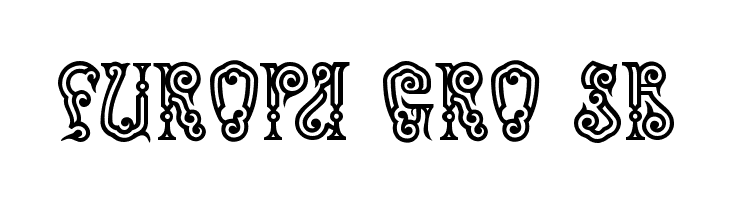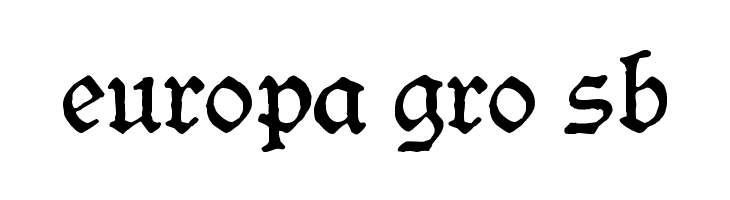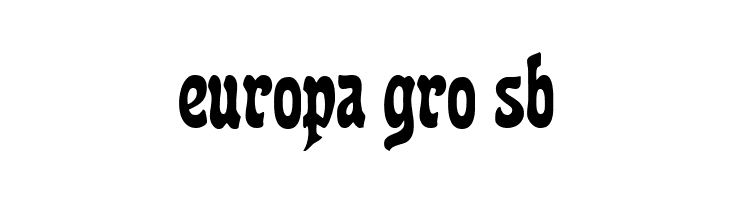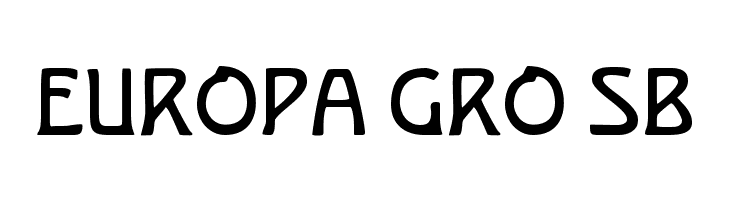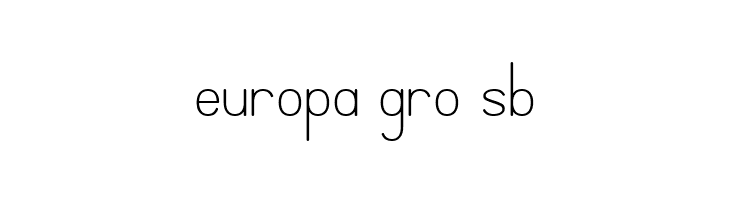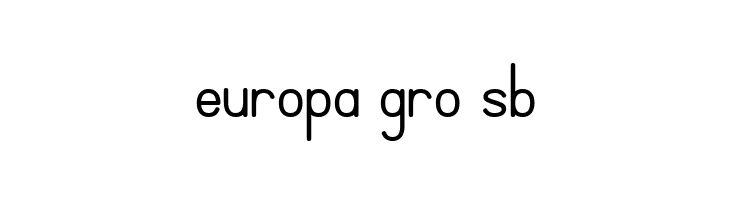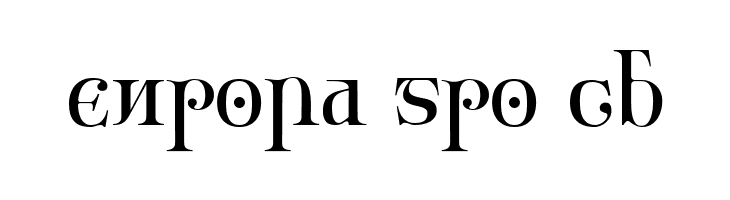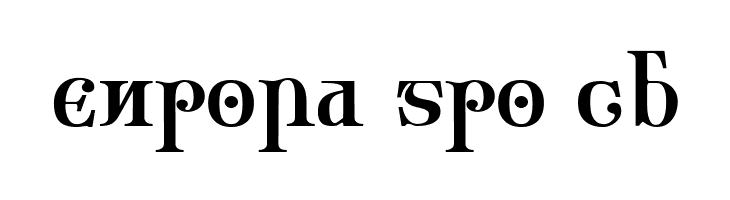
An ornate, decorative font with intricate details and bold outlines.
A gothic, medieval-style font with ornate and sharp-edged characters.
A bold, retro-style font with thick, rounded characters and a playful design.
A playful, hand-drawn style font with dynamic stroke variations.
A modern, minimalist font with thin, uniform strokes and balanced spacing.
A clean, modern font with balanced spacing and clear characters.
An artistic italic font with decorative curves and elegant style.
A bold, italicized decorative font with high contrast and pronounced serifs.
A decorative and whimsical font with intricate curves and flourishes.
A bold, decorative font with artistic curves and flourishes.